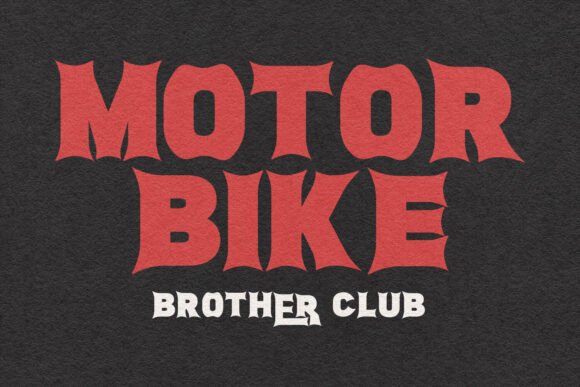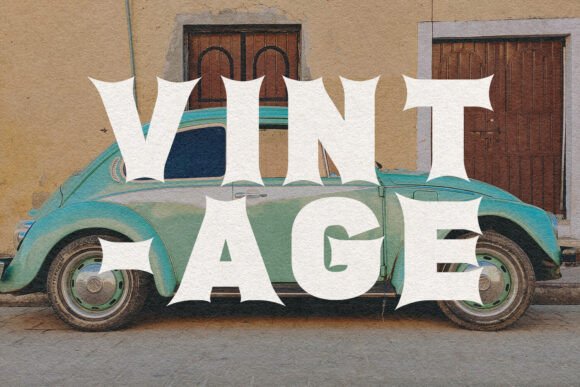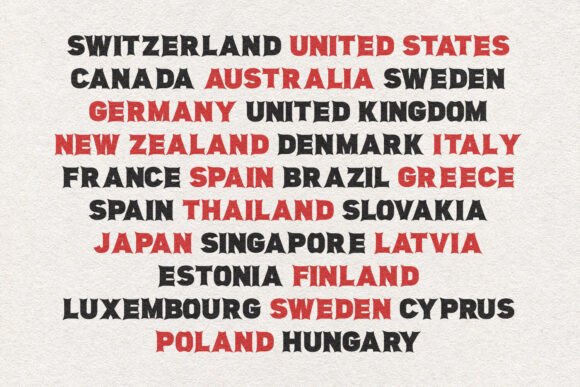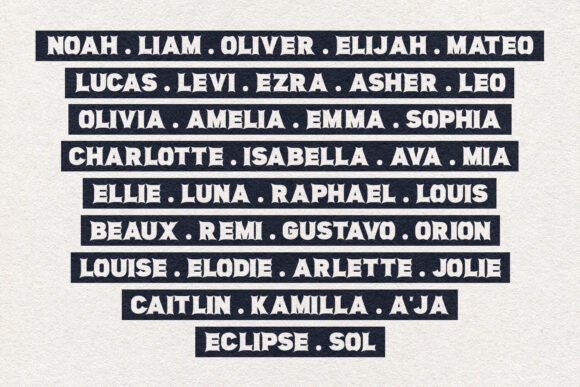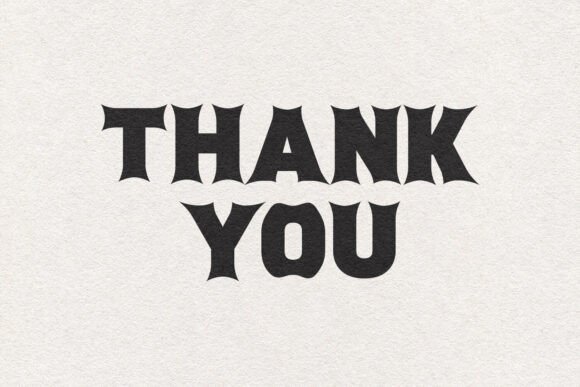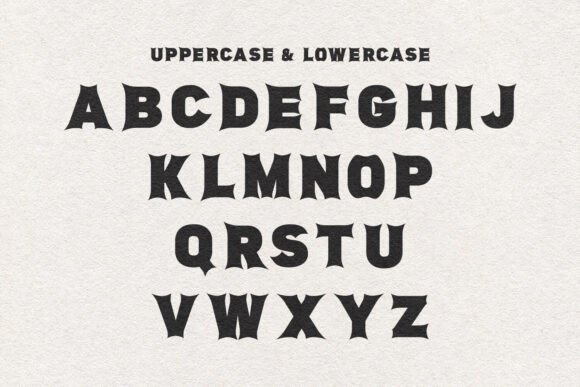
Brist Auger Font: A Timeless Vintage Display Font for Your Creative Projects
In the world of typography, fonts play a crucial role in conveying the tone and aesthetic of a design. For designers and crafters looking to add a touch of nostalgia and sophistication to their projects, the Brist Auger Vintage Display Font is an excellent choice. Inspired by vintage designs, this stylish and bold font is perfect for creating eye-catching logos, posters, and headlines.
The Unique Characteristics of Brist Auger Font
The Brist Auger Font boasts thick, sharp letters with a retro feel that instantly grabs attention. Its unique look adds a classic and eye-catching touch to any project, making it ideal for designers who want to create a lasting impression. The font’s bold and sturdy design ensures that it remains legible even at larger sizes, making it perfect for headlines, titles, and promotional materials.
Perfect for Logos, Posters, and Headlines
Whether you’re designing a logo, poster, or headline, the Brist Auger Font is an excellent choice. Its vintage-inspired design makes it perfect for:
- Logos: Create a memorable and impactful logo that stands out from the crowd with the Brist Auger Font.
- Posters: Add a touch of nostalgia and sophistication to your posters with this stylish and bold font.
- Headlines: Make your headlines pop with the Brist Auger Font’s unique and eye-catching design.
Why Choose Brist Auger Font?
With so many fonts available, why choose the Brist Auger Font? Here are just a few reasons:
- Unique Design: The Brist Auger Font features a unique and stylish design that sets it apart from other fonts.
- Legibility: The font’s bold and sturdy design ensures that it remains legible even at larger sizes.
- Versatility: The Brist Auger Font is perfect for a wide range of design projects, from logos and posters to headlines and promotional materials.
Tips for Using Brist Auger Font
To get the most out of the Brist Auger Font, here are a few tips:
- Use it sparingly: The Brist Auger Font is a bold font, so use it sparingly to avoid overwhelming your design.
- Pair it with other fonts: Pair the Brist Auger Font with other fonts to create a unique and visually appealing design.
- Experiment with colors: The Brist Auger Font looks great in a variety of colors, so don’t be afraid to experiment and find the perfect color for your design.
The Brist Auger Vintage Display Font is a stylish and bold font that’s perfect for designers and crafters looking to add a touch of nostalgia and sophistication to their projects. With its unique design, legibility, and versatility, this font is sure to become a staple in your design toolkit. So why wait? Download the Brist Auger Font today and start creating eye-catching designs that stand out from the crowd!